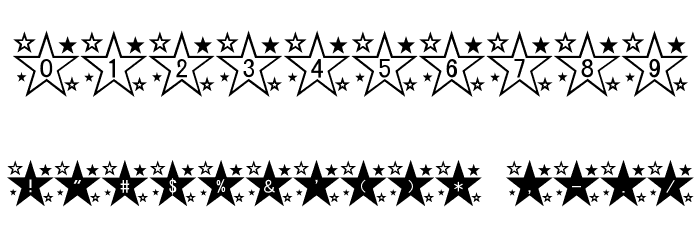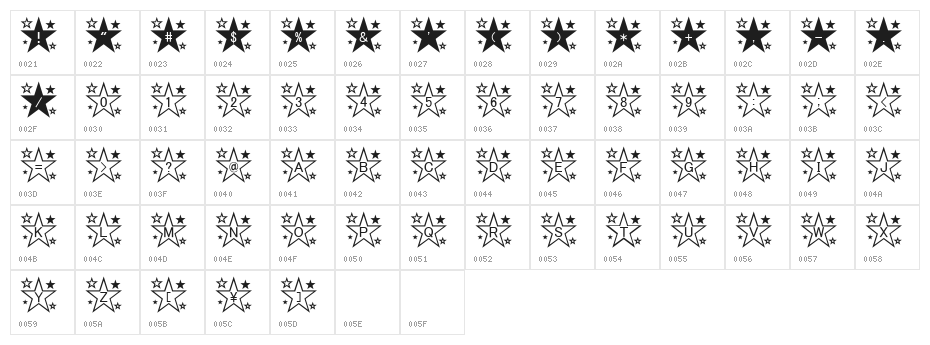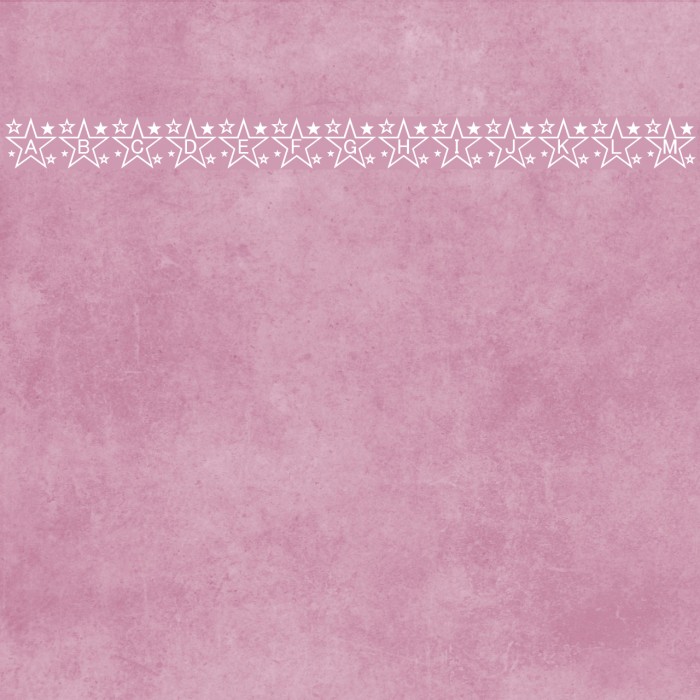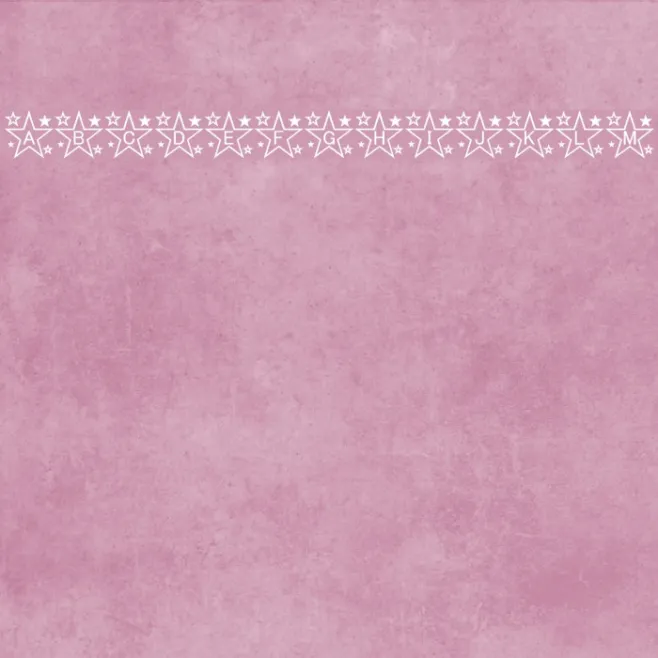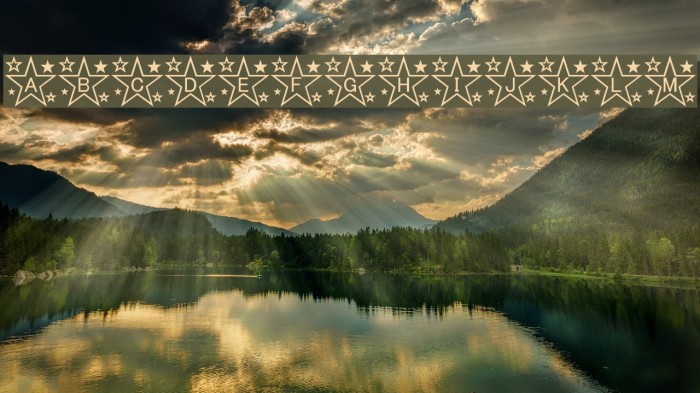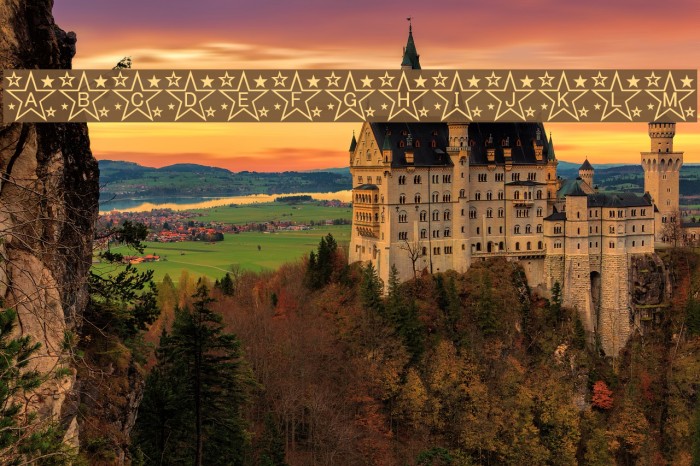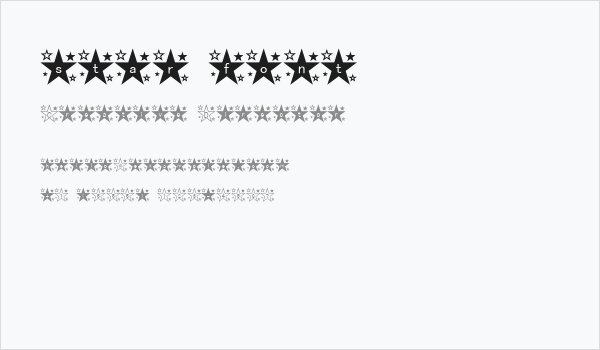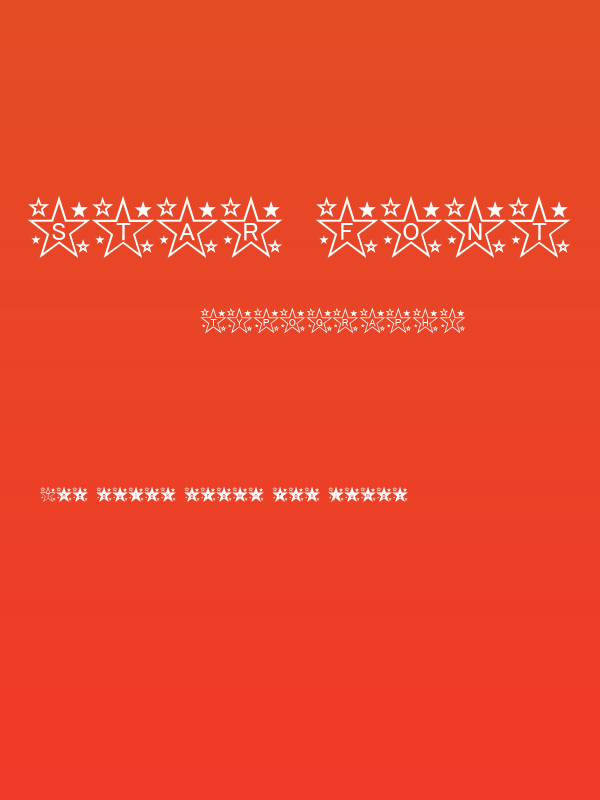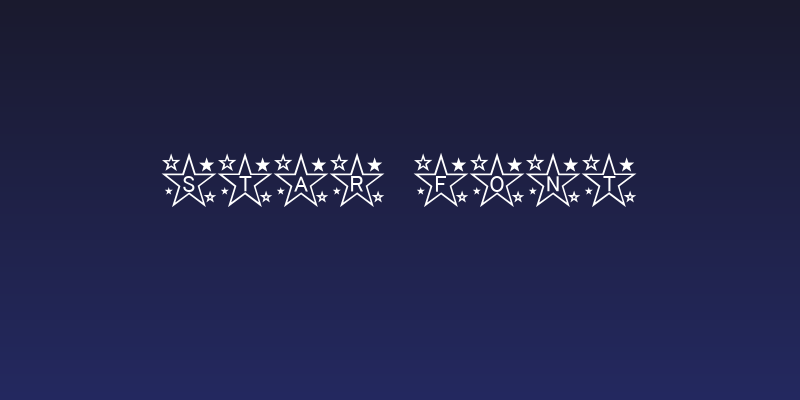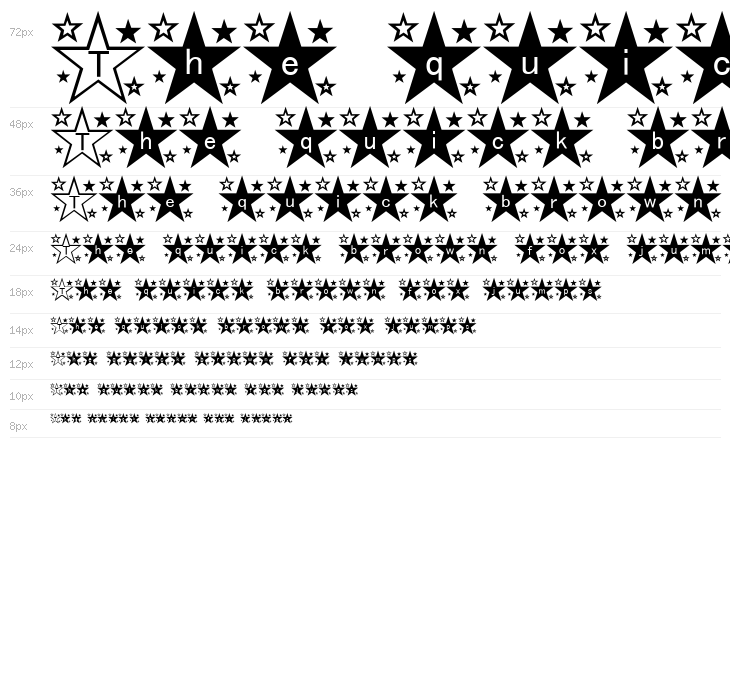
star_font Font
star_font Description
This decorative font features characters enclosed within star shapes, creating a playful and eye-catching design. Each letter and number is centered within a star, with additional smaller stars surrounding the main character, adding to the whimsical and festive appearance. The font combines both uppercase and lowercase letters, as well as numbers and special characters, all maintaining the star motif. The bold outlines and filled star shapes provide a strong visual impact, making it suitable for creative and fun projects.
| Proposed Projects | Ideal for children's party invitations, festive banners, playful branding, and any project requiring a fun and whimsical touch. |